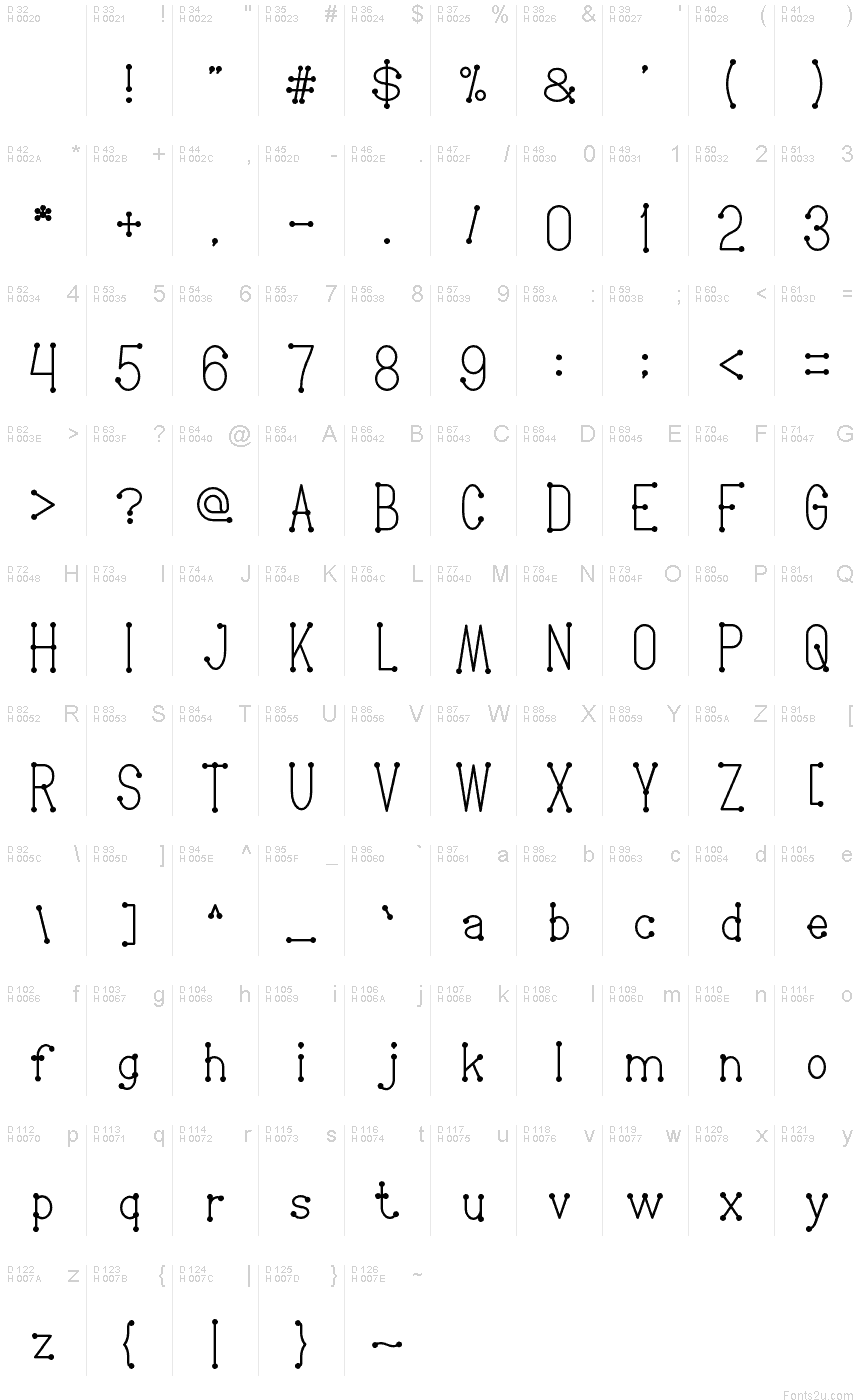
Welcome To Planet Earth by Weknow is a free decorative display font built around tall, slender letters and prominent round nodes. Its monoline strokes bend into broad loops and tight curves, giving the alphabet the look of a playful circuit diagram or a set of connected pins.
The dotted joints can echo wiring, maps, and simple technical illustrations in science-event posters and educational graphics. They also make an unusual link between futuristic packaging and electronic-music artwork, where the lettering can become part of the surrounding line work. Its clearest audience is designers creating approachable science, technology, or space-themed material for younger viewers.
Welcome To Planet Earth by Weknow is a free decorative display font.